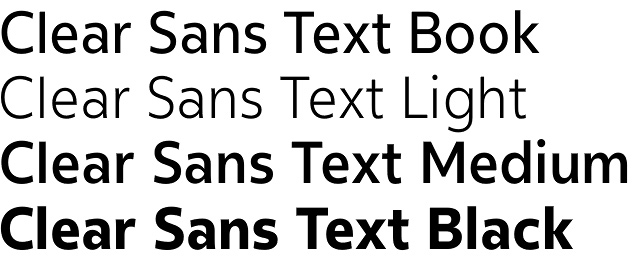
Clear Sans
It’s a rational and geometric, but nonetheless expressive and friendly sans serif. The original skeleton was hand-painted in 2008 and completed shortly afterwards. Since then the font has been continuously expanded and improved.
The latest Neil Summerour’s expansion of the incredible Clear Sans font family includes the brand new Clear Sans Text font and Clear Sans Screen font. Both fonts were developed in a way to utilize larger x-heights, space-saving widths, logical (and simplified) weight offerings, etc. – all these in support of the increasing use of web fonts and embedded type in applications.
Both offer 5 weights (Light, Book, Medium, Bold, Black), plus the corresponding italics. Stylistics alternates, small caps, stylistic sets, ordinals, fractions, tabular and old-style numerals, and unicorns are also available for both. In addition to the standard languages support Clear Sans Text font supports Baltic, Turkish, and Romanian languages, too.